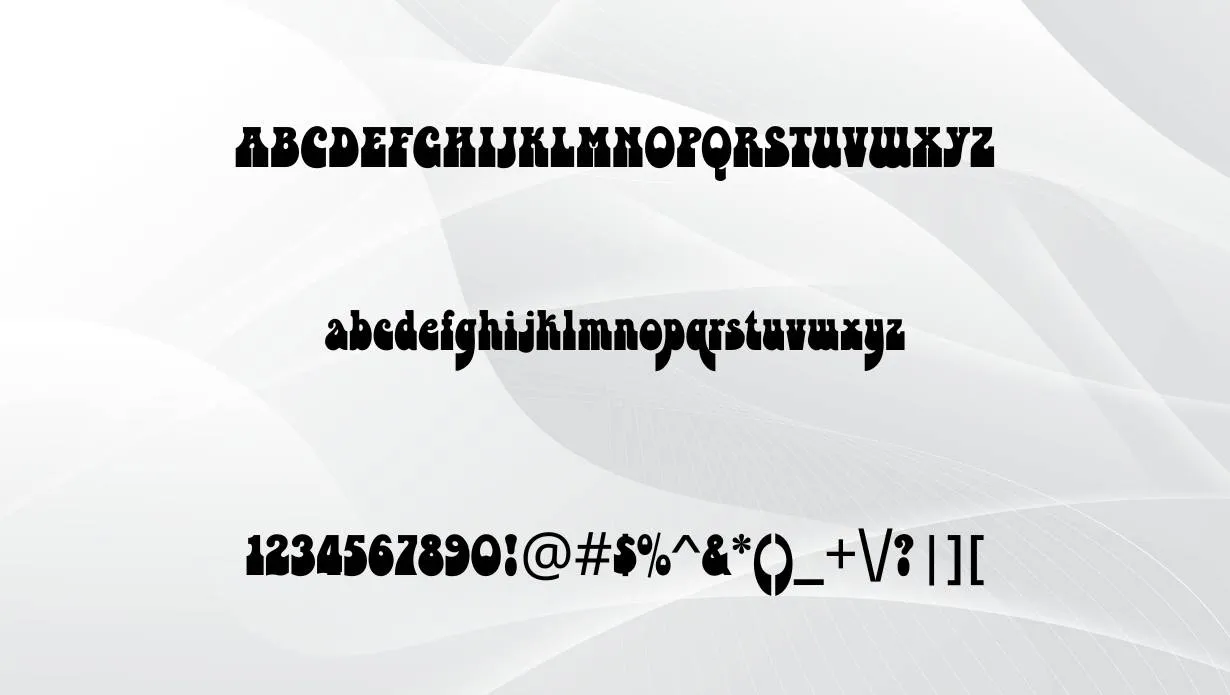
The Bottleneck Font is like a secret recipe for your designs, adding a unique flavor that sets them apart.
| Name | Bottleneck Font |
| Designer | Tony Wenman |